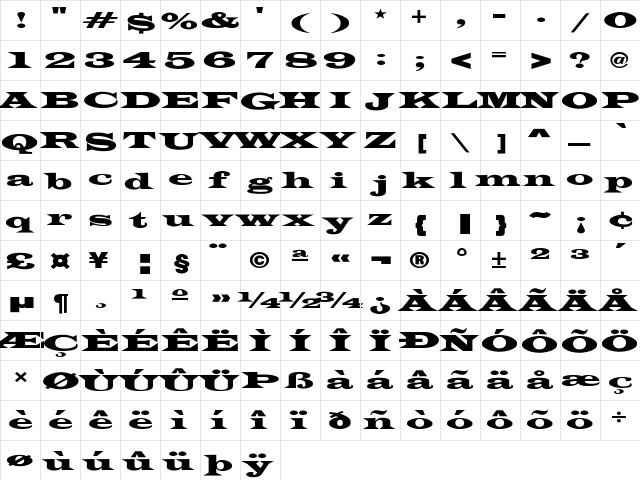
LatinWideExt-Normal Regular
Design Context for LatinWideExt-Normal Typeface
LatinWideExt-Normal takes a measured approach to typography — its balanced proportions and neutral character make it a reliable workhorse for both digital and print work.